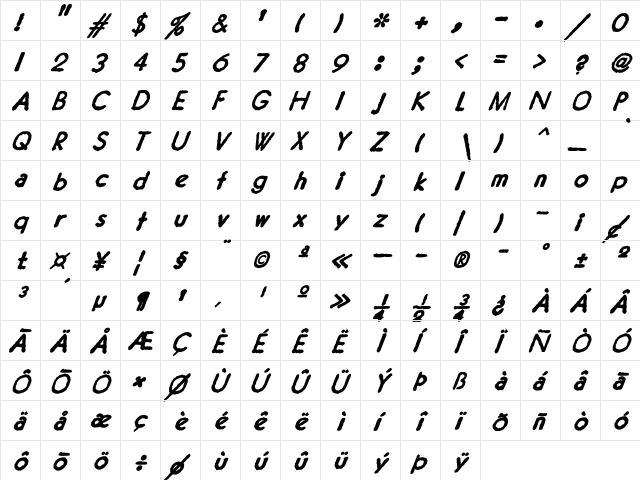
JMH Typewriter Sans Bold Italic Font Preview
Design Context for JMH Typewriter Sans Typeface
JMH Typewriter Sans uses fixed-width spacing throughout, giving it the structured, systematic character associated with coding environments and technical documentation. The slanted form adds forward momentum and visual energy. Its bold stroke weight gives it real presence on the page.
A natural fit for code editors, technical documentation, developer-focused branding, and terminal-inspired UI.
Pro Tip: Pair JMH Typewriter Sans with a proportional sans for UI contexts where code-style labels and regular body copy need to coexist.